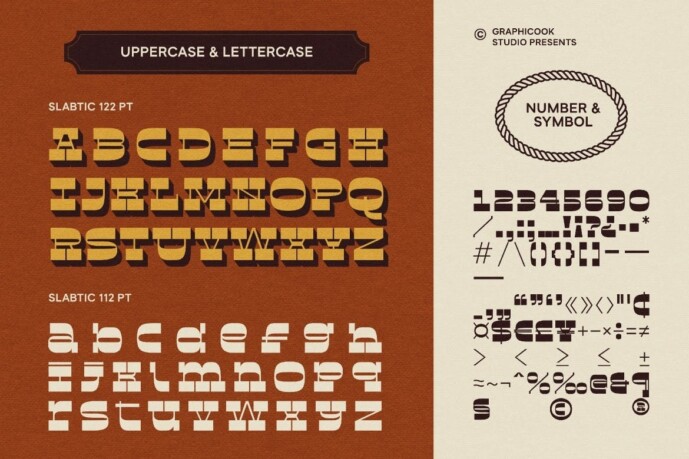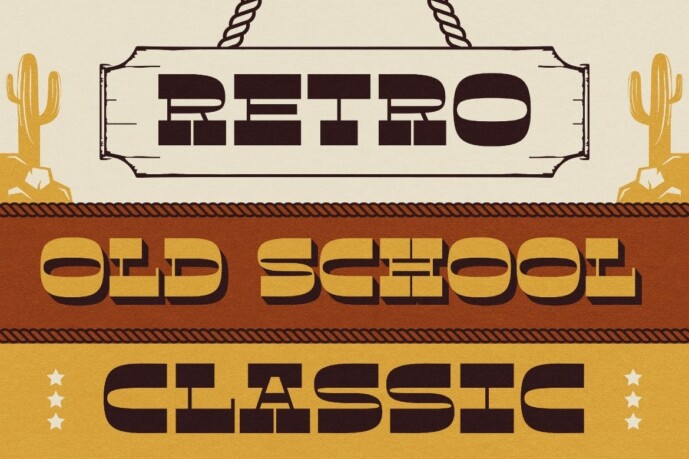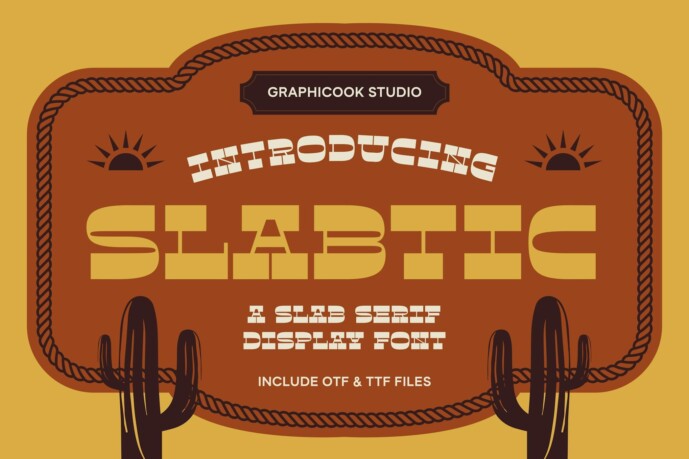
Slabtic Font
Slabtic Font is a slab-shaped serif style featuring bold, contrasting letters. Its distinctive design lends itself beautifully to headlines, titles, and posters, though its legibility is perhaps best suited to large formats and eye-catching screens.